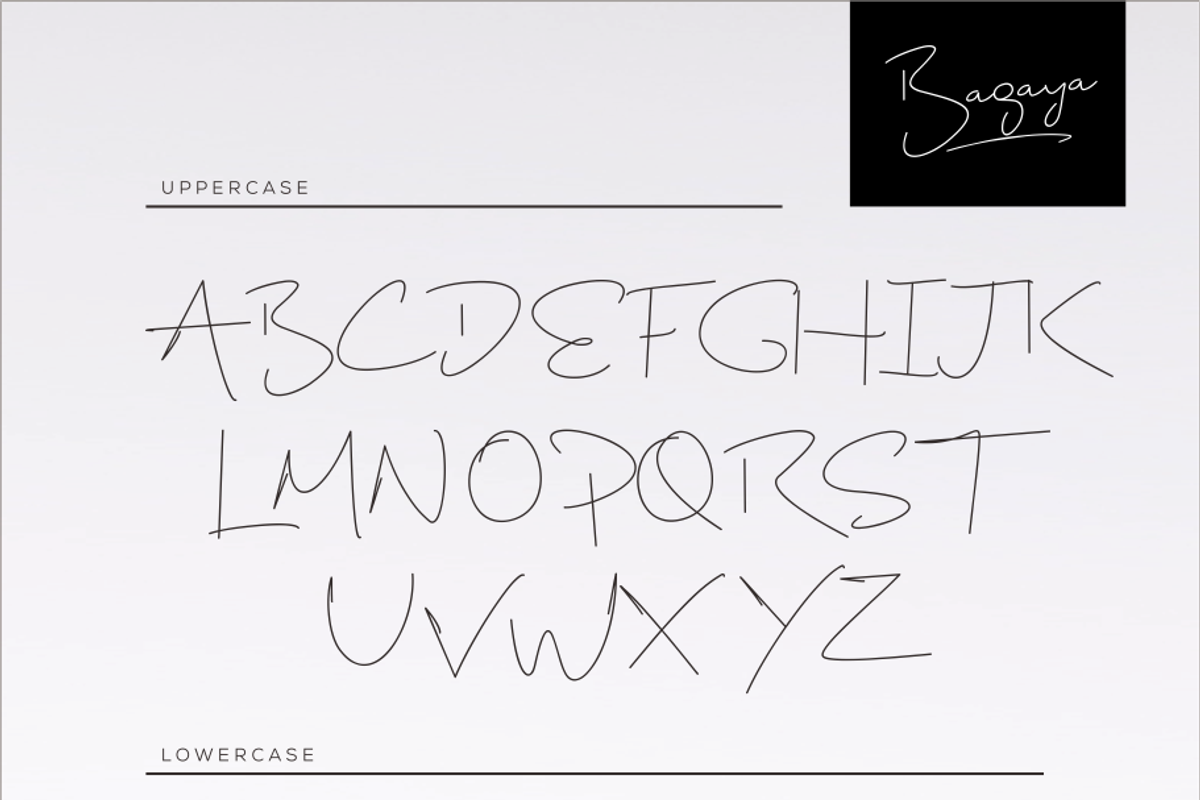
Introducing the new ‘Bagaya ’ signature typeface font - A fashionable and awesome new handwriting font script with authentic stylish. Bagaya font was created from natural handwritten script as possible by including ligatures, include lowercase,punctiation,ligatures,number and more international characther.
Give your designs an authentic handcrafted feel. “Bagaya” is perfectly suited to stationery, logos and much more.